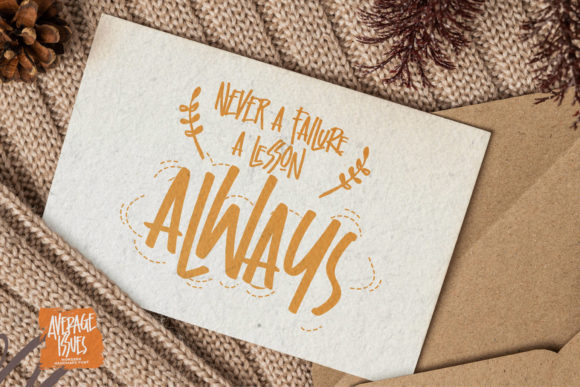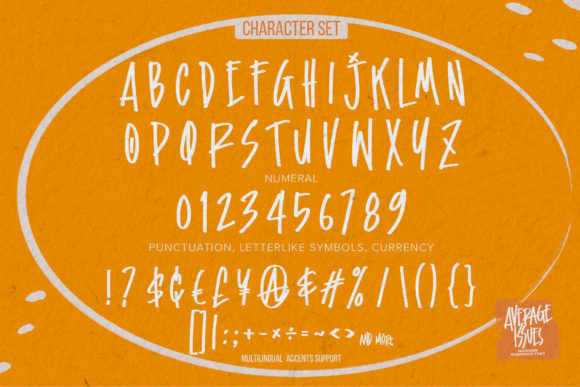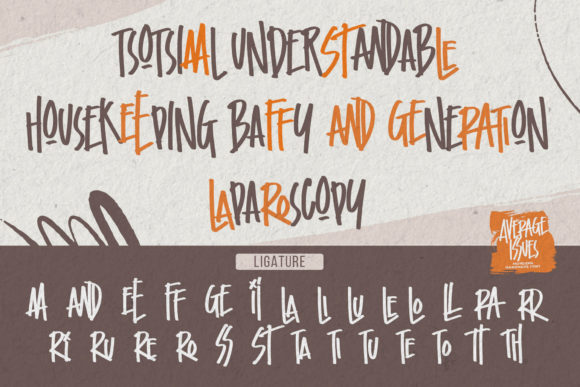
A Game-Changing Font: Average Issues
Average Issues is a cool display font that exudes a street art vibe, making it perfect for designs such as t-shirts, sportswear, logos, advertisements, clothing, and more. What sets it apart is its PUA encoding, which means you can access all the glyphs and swashes with ease! 🎉 This font has quickly become a staple in my design toolkit, and I’m excited to share my experience with you.
- ✨ Unique street art vibe that’s hard to find in other fonts
- 💥 Highly versatile and can be used for a wide range of designs
- 👍 Excellent for creating eye-catching headlines and titles
- ⚠️ May not be suitable for body text due to its display nature
- 🤔 Limited availability of certain characters, but this can be overcome with glyph exploration
The Designer Behind Average Issues: A Backstory
Average Issues was designed with the intention of capturing the essence of street art and urban culture. The designer aimed to create a font that would be both bold and expressive, perfect for making a statement. While the designer’s identity may remain anonymous, their passion for street art and design is evident in every detail of Average Issues.
A: PUA (Private Use Area) encoding allows font users to access a wide range of glyphs and swashes, making it easier to create unique and customized designs.
Q: Is Average Issues suitable for body text?
A: Due to its display nature, Average Issues may not be the best choice for body text. However, it excels at creating eye-catching headlines and titles.